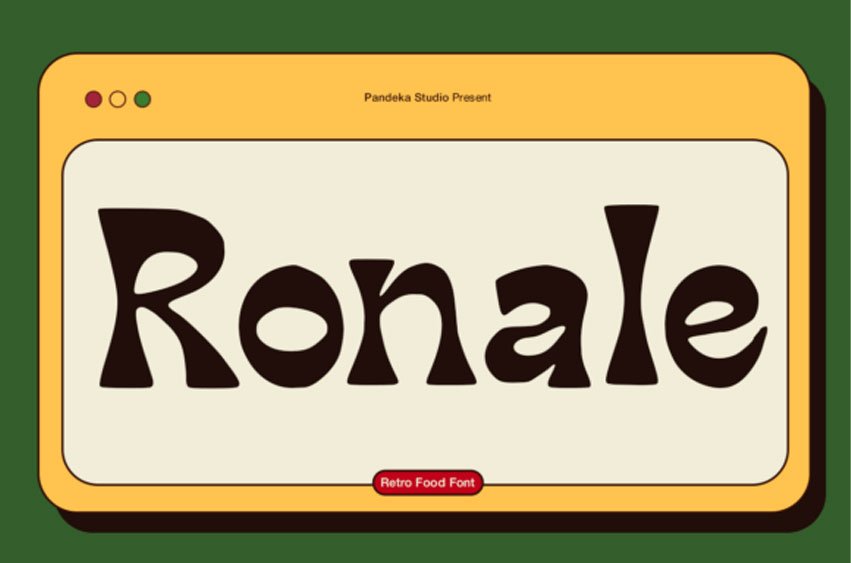
Ronale Font is a deliciously chunky, groovy retro font that perfectly channels the vibrant, unmistakable style of the late 1960s and 1970s.
The font features low contrast and extremely bold, rounded forms with distinctively curved serifs and terminals, giving it a soft, doughy appearance that is both eye-catching and incredibly friendly. Its unique character set and rhythmic flow lend themselves perfectly to headlines that demand attention with a funky, throwback vibe that is currently highly trending.
This typeface is a must-have for food and beverage branding, snack packaging, vintage-inspired advertisements, music album art, and any project aiming for a psychedelic, bohemian, or disco aesthetic. Ronale’s substantial weight ensures impact, making it the ideal choice for modern retro logos and playful menu designs.